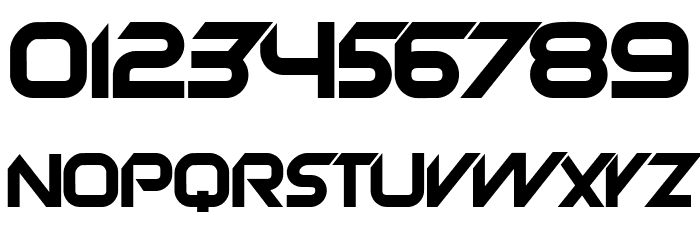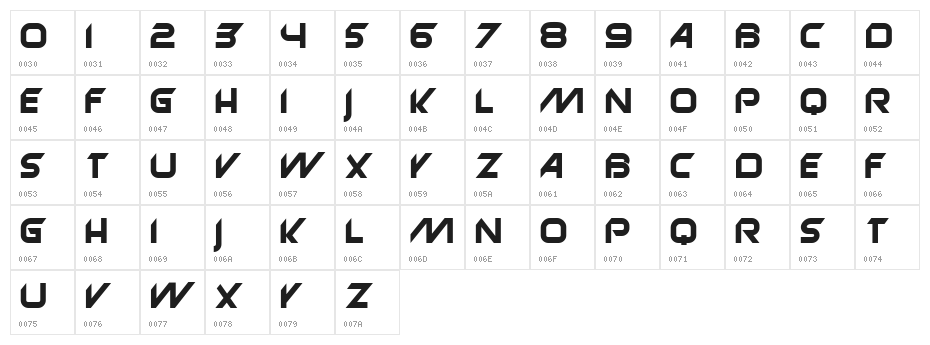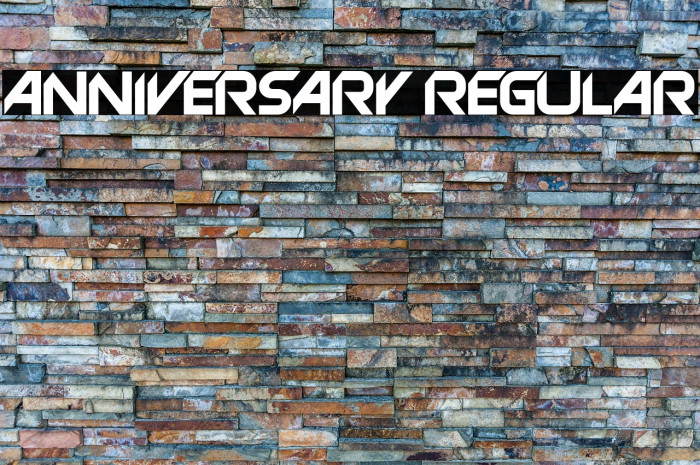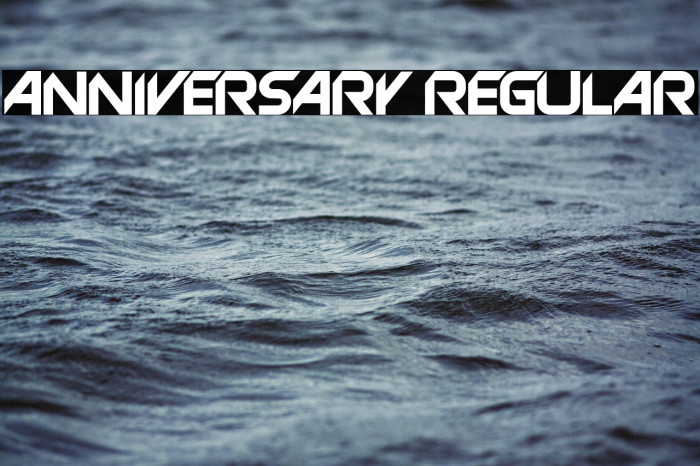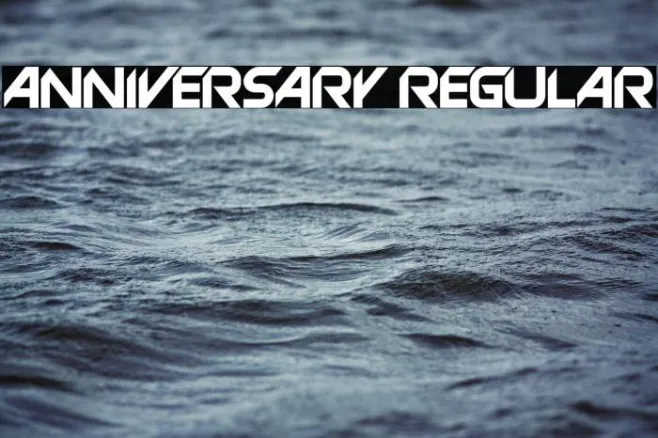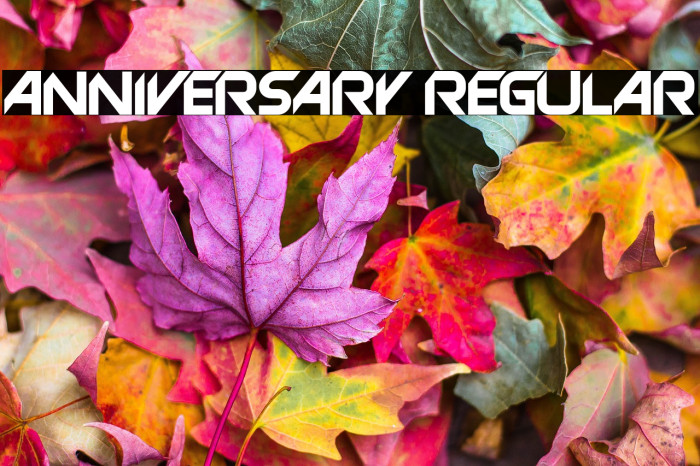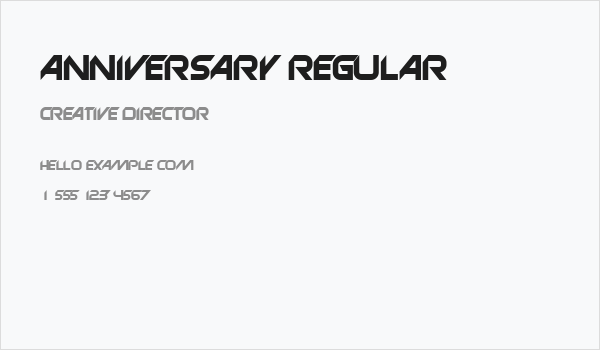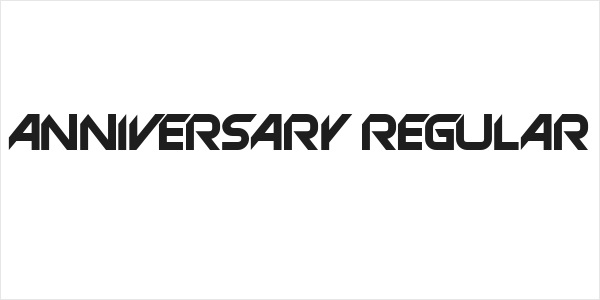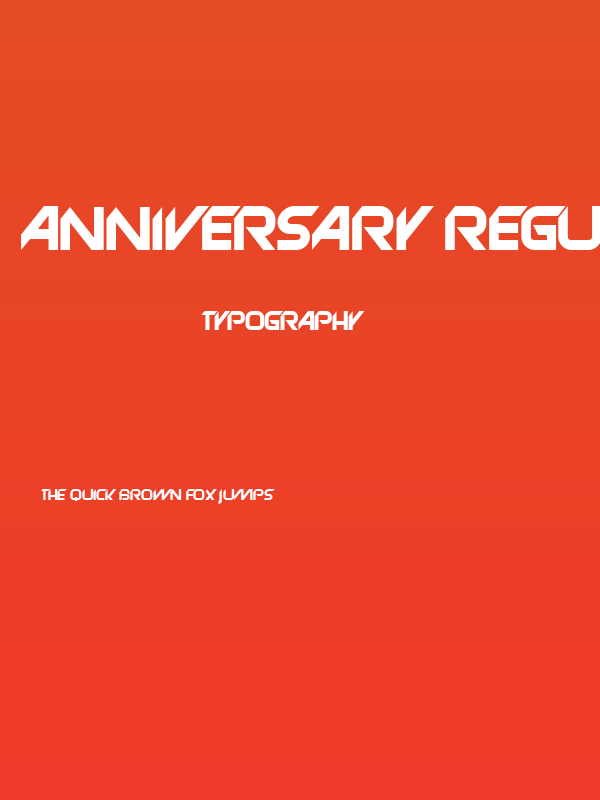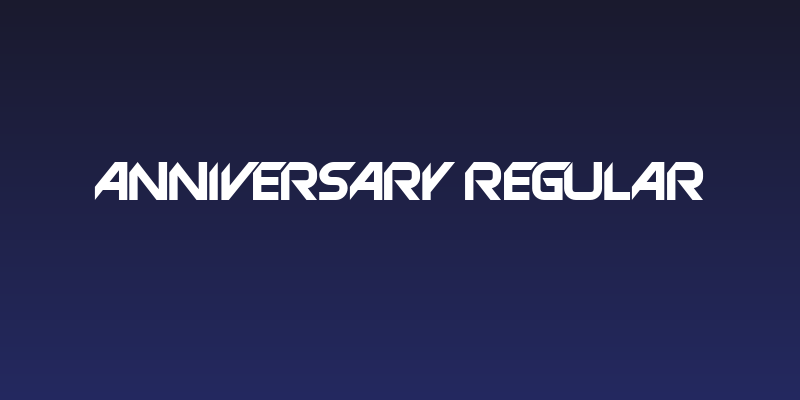
Anniversary Regular Font
Anniversary Regular Description
This font features a bold, futuristic design with sharp angles and a geometric structure. The uppercase letters are distinct with a strong presence, characterized by their angular cuts and wide stance. The numerals follow a similar style, maintaining consistency with the letterforms. The overall appearance is modern and dynamic, making it suitable for attention-grabbing headlines and branding. The font's unique style is enhanced by its consistent stroke weight and clean lines, offering a sleek and professional look.
| Proposed Projects | Ideal for technology branding, sci-fi movie posters, video game titles, and modern advertising campaigns. |